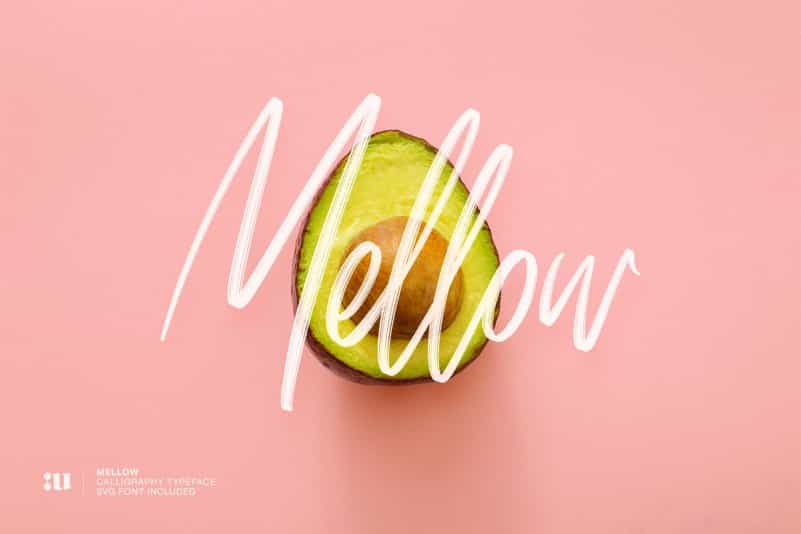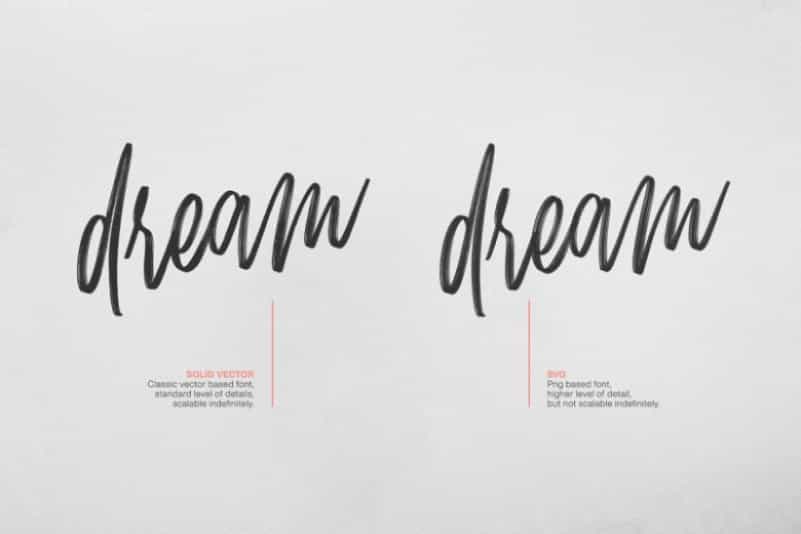
Discover Mellow Brush SVG Font, part of the Commercial Brush collection—a versatile and unique font perfect for adding a personal touch to your projects. Download it for free and enjoy crafting designs with style, from invitations to social media posts. This font is available exclusively for personal use, giving you the freedom to create without limits. Unlock your creativity with Mellow Brush SVG Font today!
Let me introduce you to Mellow Font. It’s so calming! This font features handcrafted calligraphy in two forms; SVG and Brush. It is a versatile brush font that can be applied to diverse design projects ranging from branding to packaging, clothing or stationery.